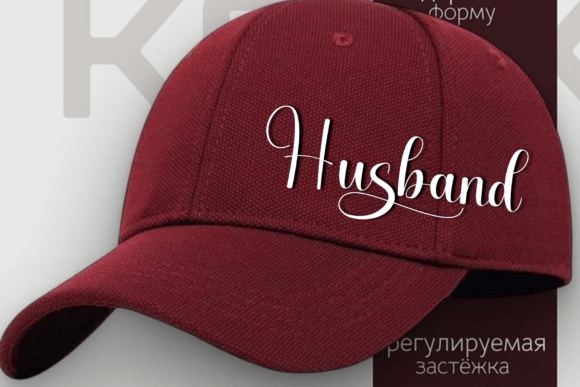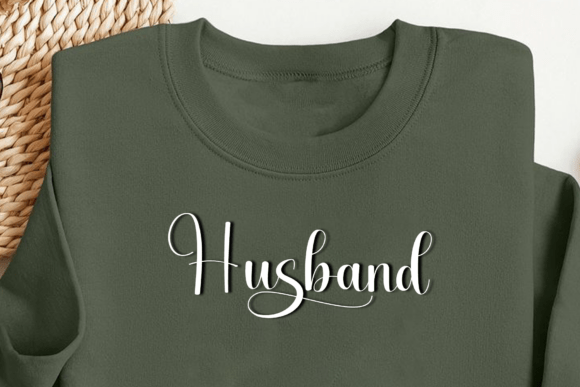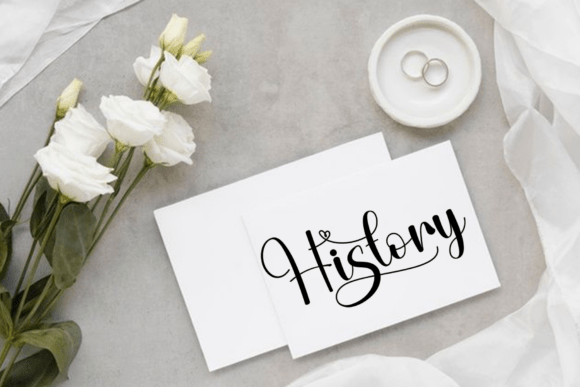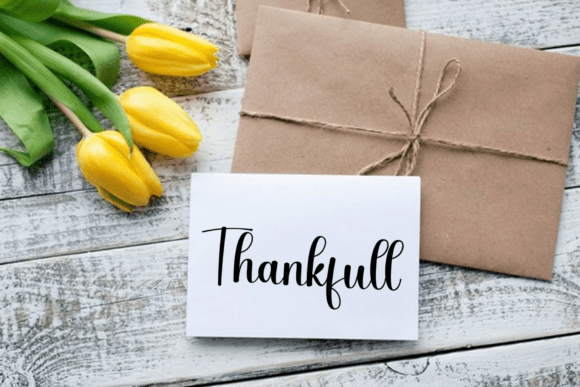
The Easter Font: A Sophisticated Script for Creative Projects
I’ll never forget the design project that led me to discover the Easter font. I was working on a branding campaign for a boutique bakery, and I needed a font that would convey warmth, sophistication, and a touch of artisanal charm. After hours of searching, I stumbled upon Easter, and it was love at first sight. The sweeping, looping ascenders and gentle curves instantly captured the essence of the bakery’s handcrafted treats. In this article, I’ll share my experience with the Easter font, its features, and how to make the most of it in your creative projects.
An Honest Review of Easter Font
- ✨ Sophisticated and rhythmic script style that exudes elegance
- ✅ Warm, organic aesthetic that feels handcrafted
- ✅️ Perfect for artisanal food branding, boutique product packaging, and upscale lifestyle marketing
- ✨ Excellent for creative editorial titles, such as magazine covers or blog posts
While Easter is an exceptional font, it’s not without its quirks. For instance:
- ⚠️ Some users may find the font’s script style a bit challenging to read at smaller sizes.
- 🤔 The font’s extensive use of OpenType features and glyphs may require a bit of learning to master.
The Story Behind Easter Font
Easter font was designed with the intention of capturing the essence of artisanal craftsmanship and elegance. The designer’s inspiration came from traditional calligraphy and hand-lettering techniques, combined with a modern, creative twist. The result is a font that feels both sophisticated and approachable, making it perfect for a wide range of creative projects.
Q: What type of projects is Easter font best suited for?
A: Easter font is ideal for artisanal food branding, boutique product packaging, upscale lifestyle marketing, and creative editorial titles.
Q: Is Easter font easy to read?
A: Easter font is generally easy to read, but its script style may be challenging at smaller sizes. It’s best used at larger sizes or for display purposes.